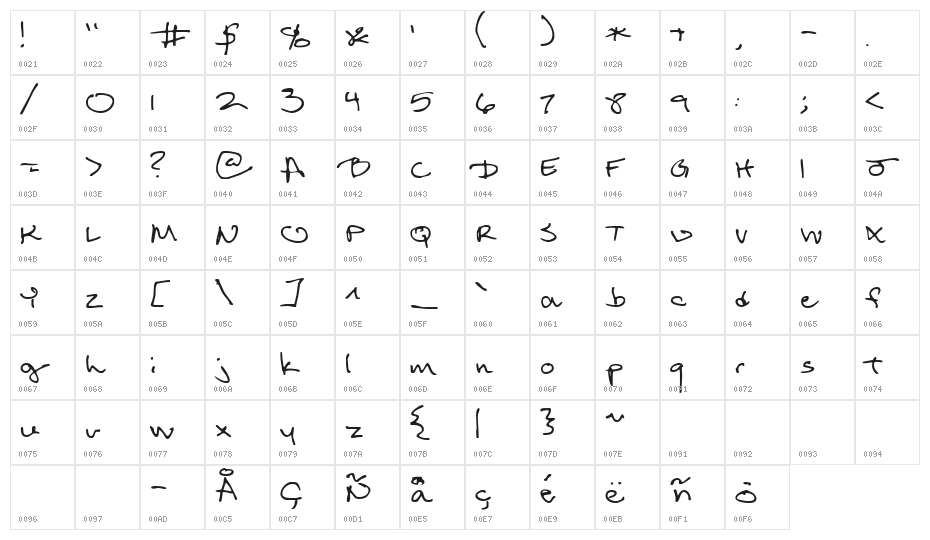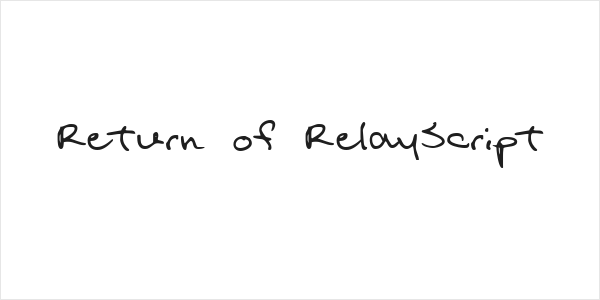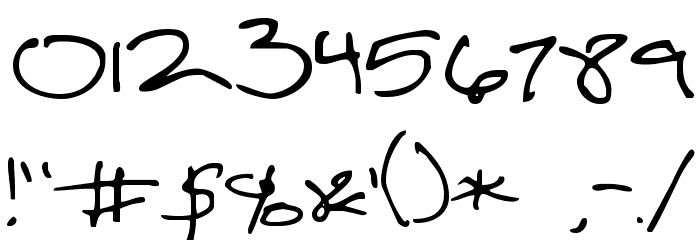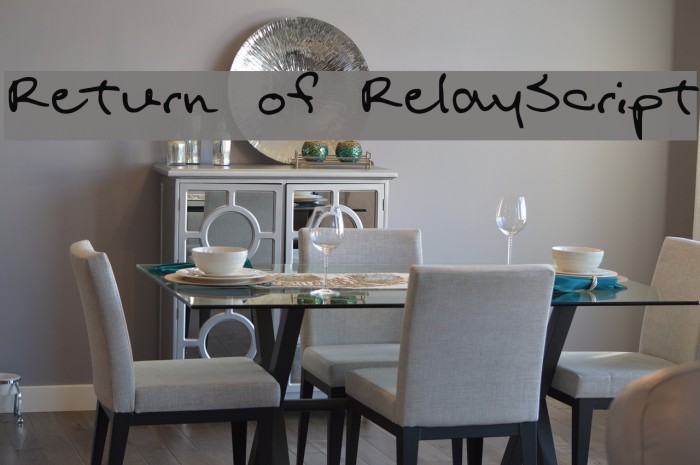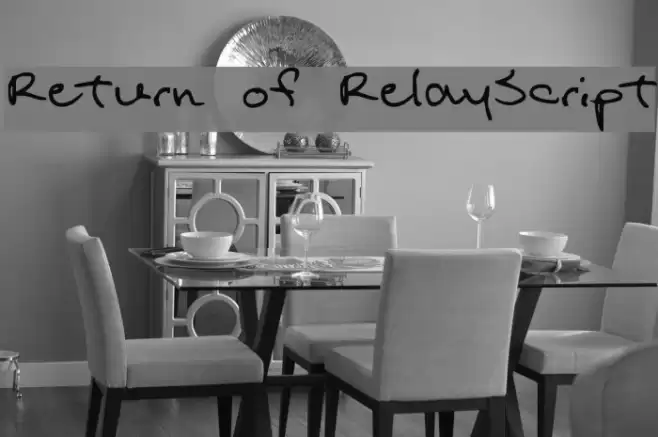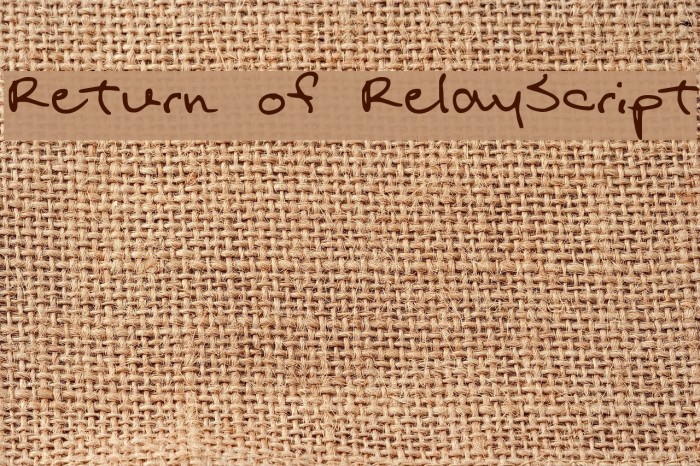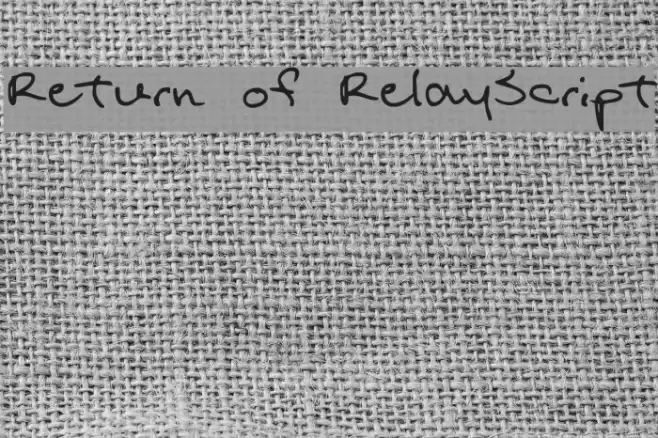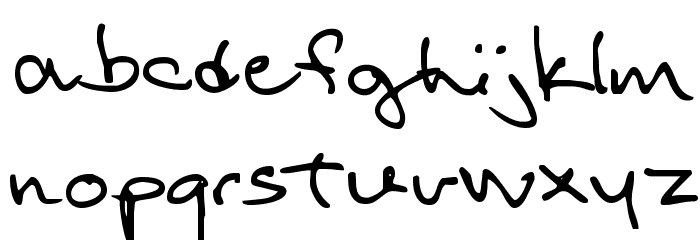
Return of RelayScript Font
| Gesamtstil | Casual, Playful |
| Anwendungsfall | Logos, Headlines, Informal Text |
| Vorgeschlagene Projekte | Ideal for greeting cards, personal notes, informal invitations, and creative projects that require a personal touch. |